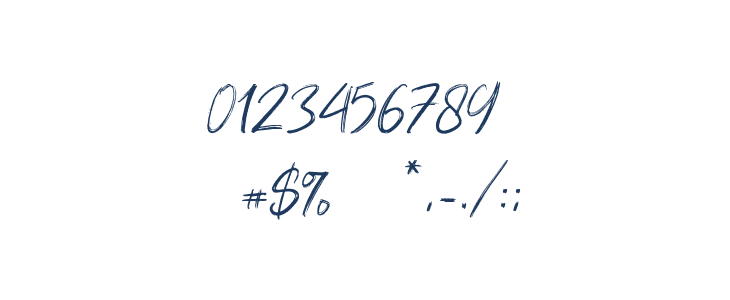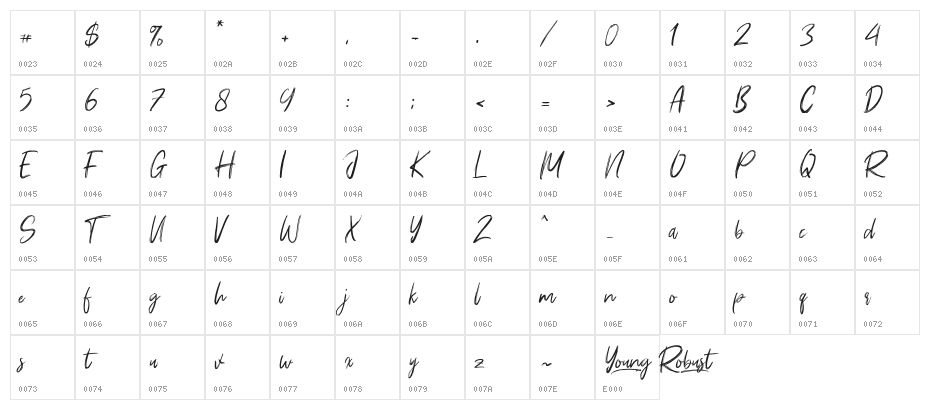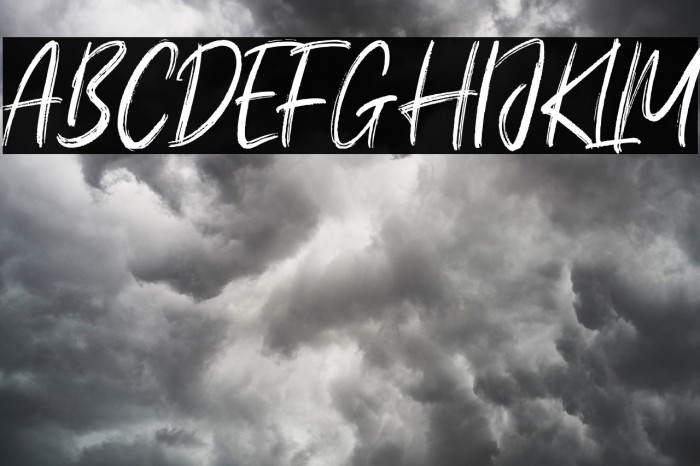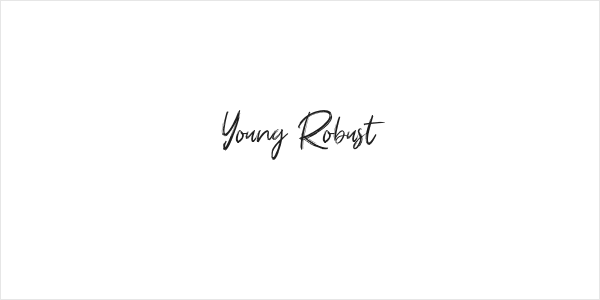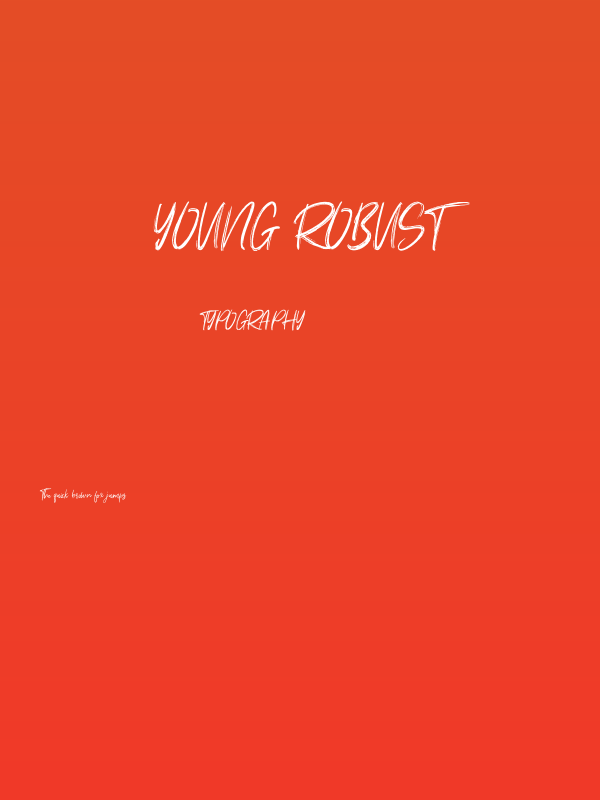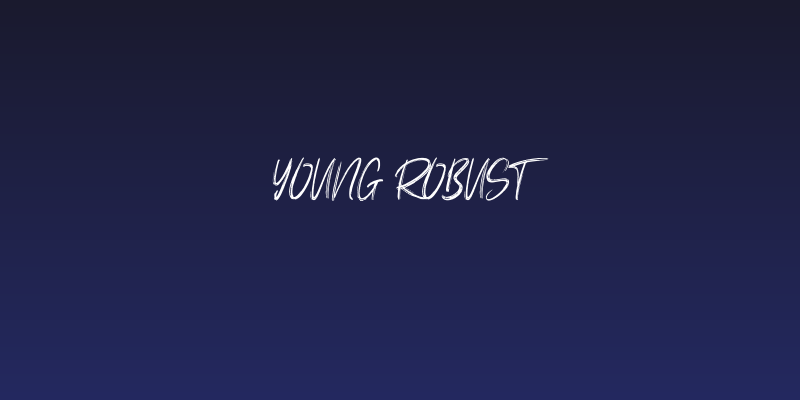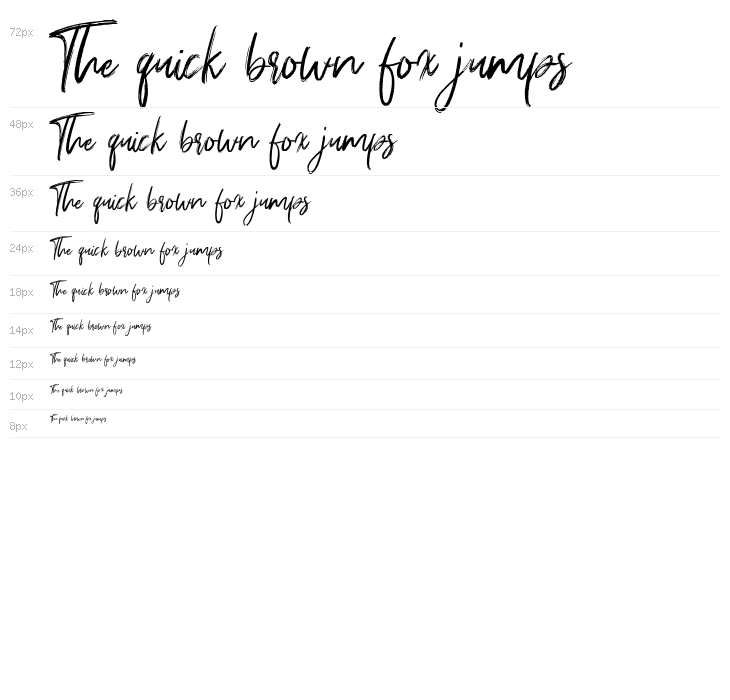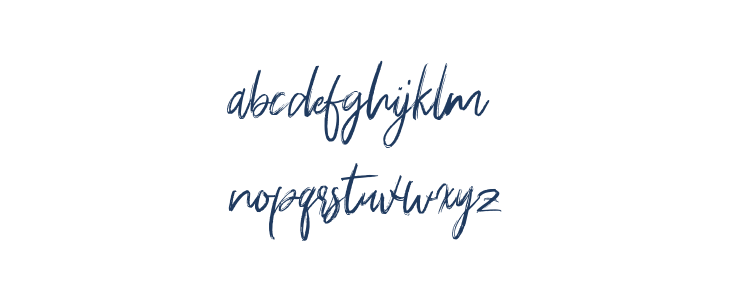
Young Robust Font
Young Robust Description
This font exudes a dynamic and energetic vibe, characterized by its bold, brush-like strokes that convey a sense of movement and spontaneity. The uppercase letters are particularly striking, with their elongated forms and slightly irregular edges that add a handcrafted feel. The lowercase letters maintain this lively aesthetic, offering a harmonious flow that complements the uppercase. Numbers and special characters are crafted with the same attention to detail, ensuring consistency across all elements. The overall impression is one of creativity and expressiveness, making it ideal for projects that require a personal touch.